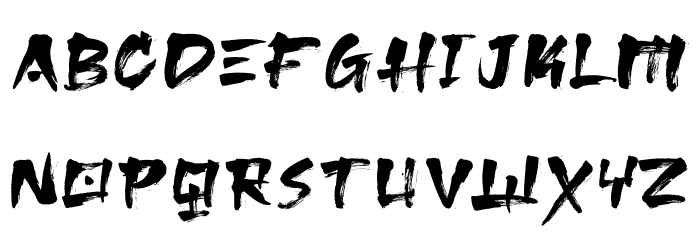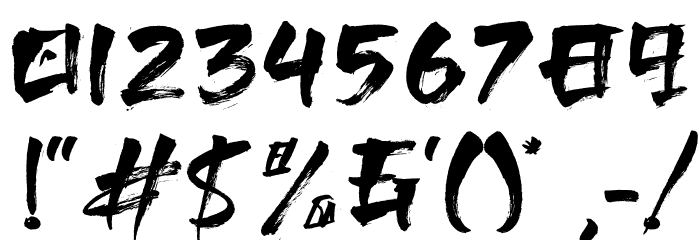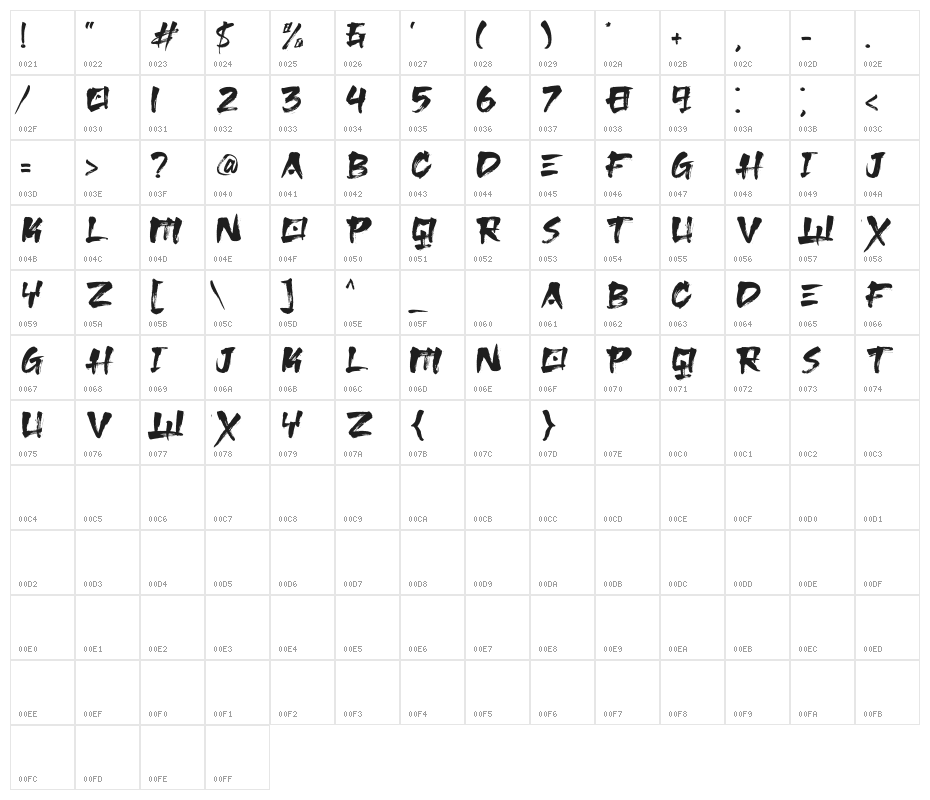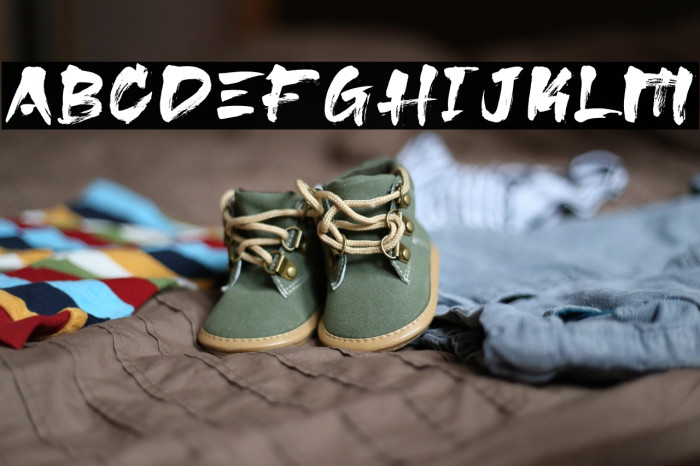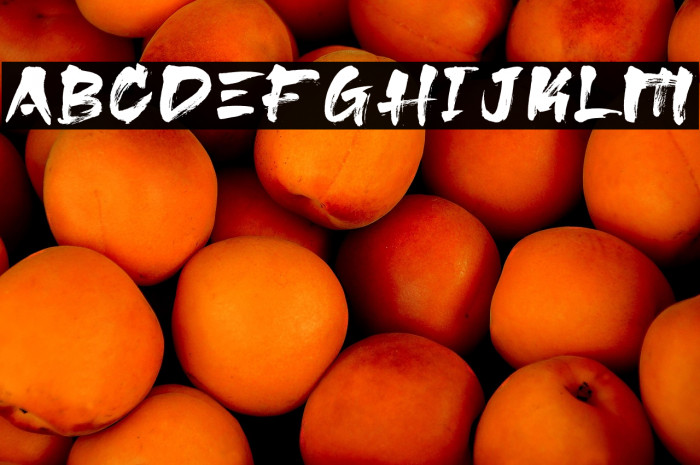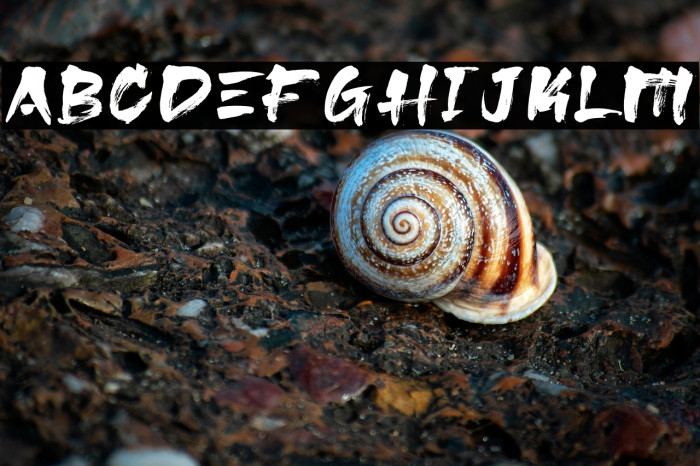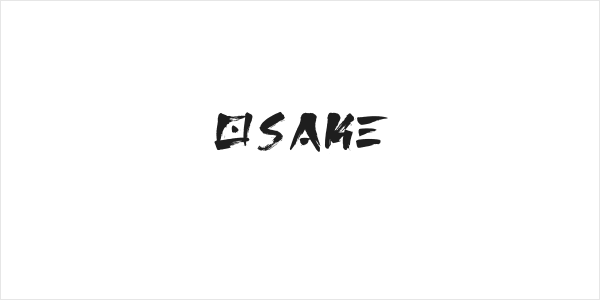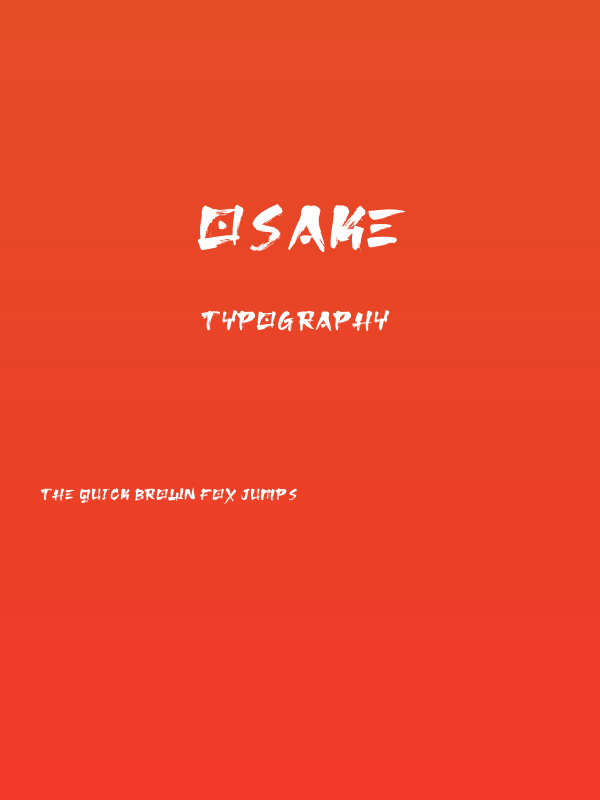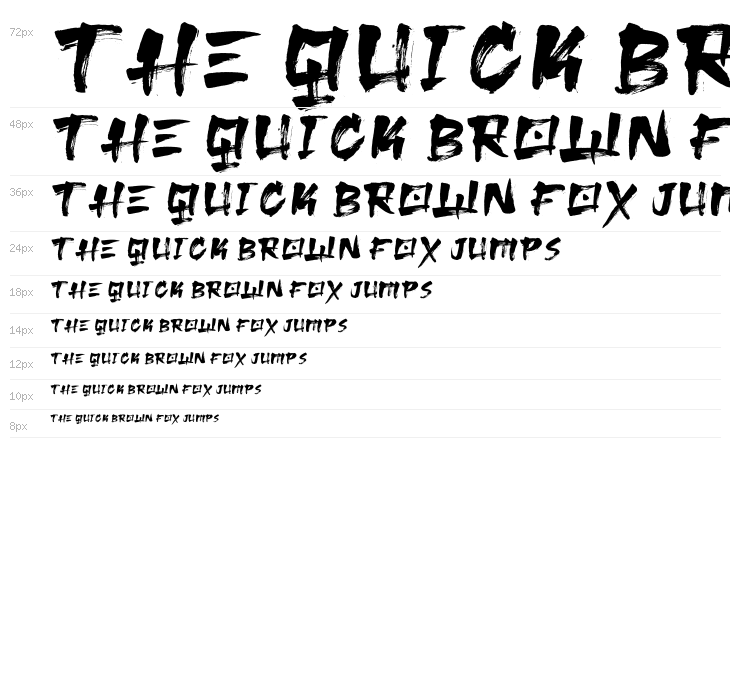
Osake Font
This font exudes a bold and expressive style, characterized by its brush-like strokes and dynamic appearance. The letters have a hand-painted quality, with varying thicknesses that give it a lively and energetic feel. The uppercase and lowercase letters maintain a consistent style, with sharp angles and a slightly rough texture that adds to its artistic charm. The numerals and special characters follow the same aesthetic, ensuring a cohesive look across all glyphs. This font is perfect for projects that require a strong visual impact and a touch of creativity.
A bold, brush-style font with dynamic, hand-painted strokes.
- Font: Osake
- Proposed Projects: Ideal for posters, branding, album covers, and creative advertising.
- Overall Style: Modern, Artistic